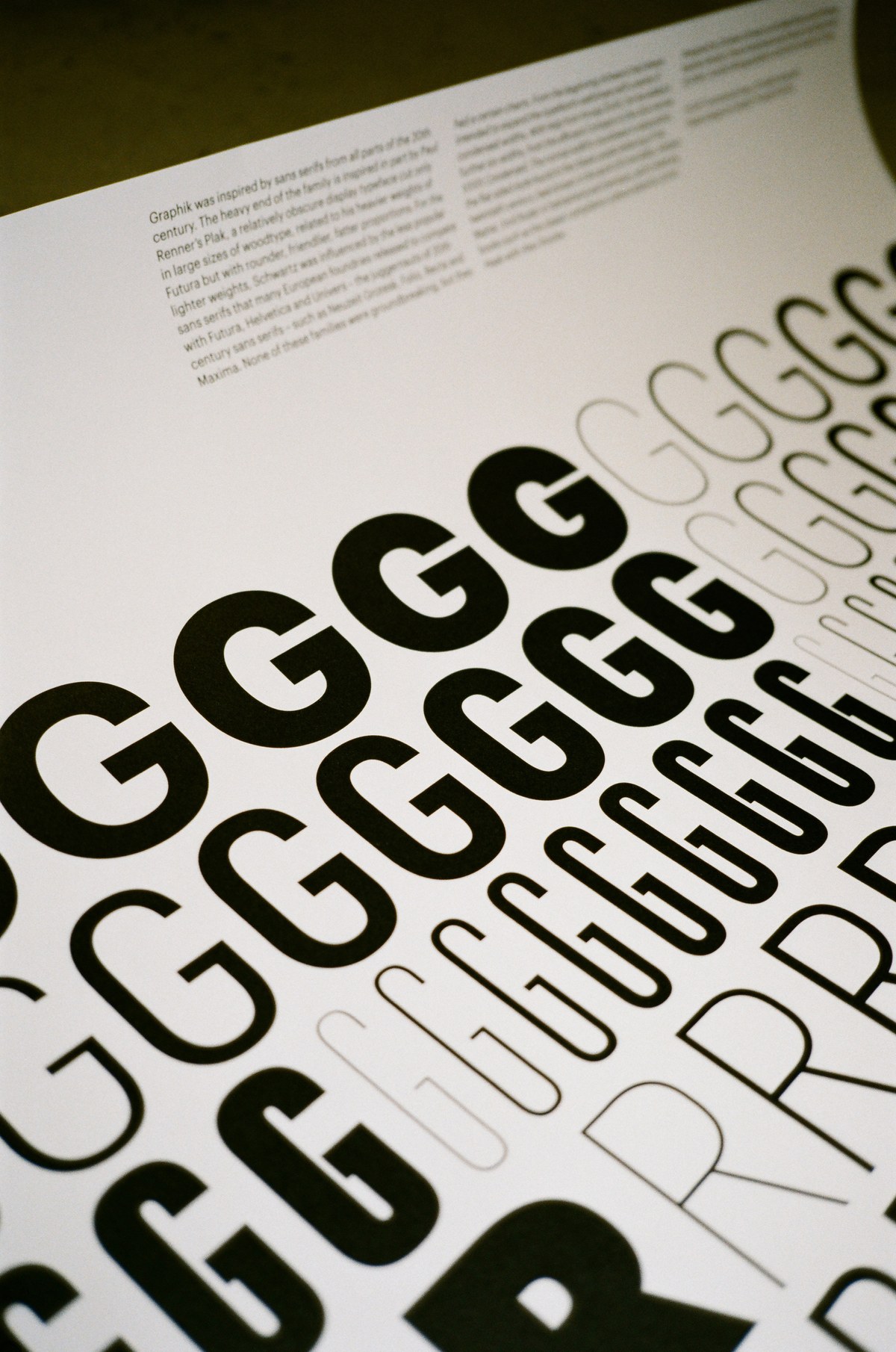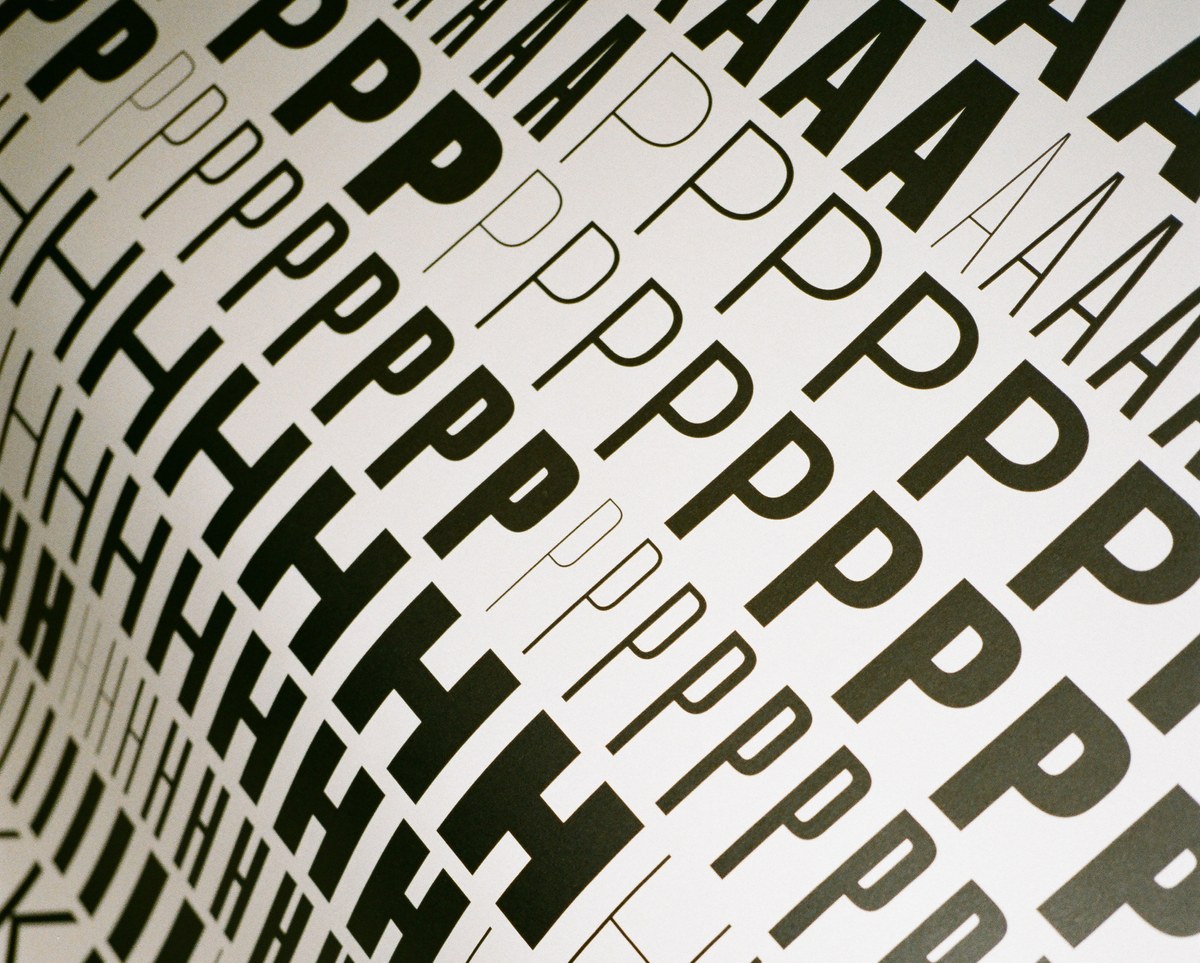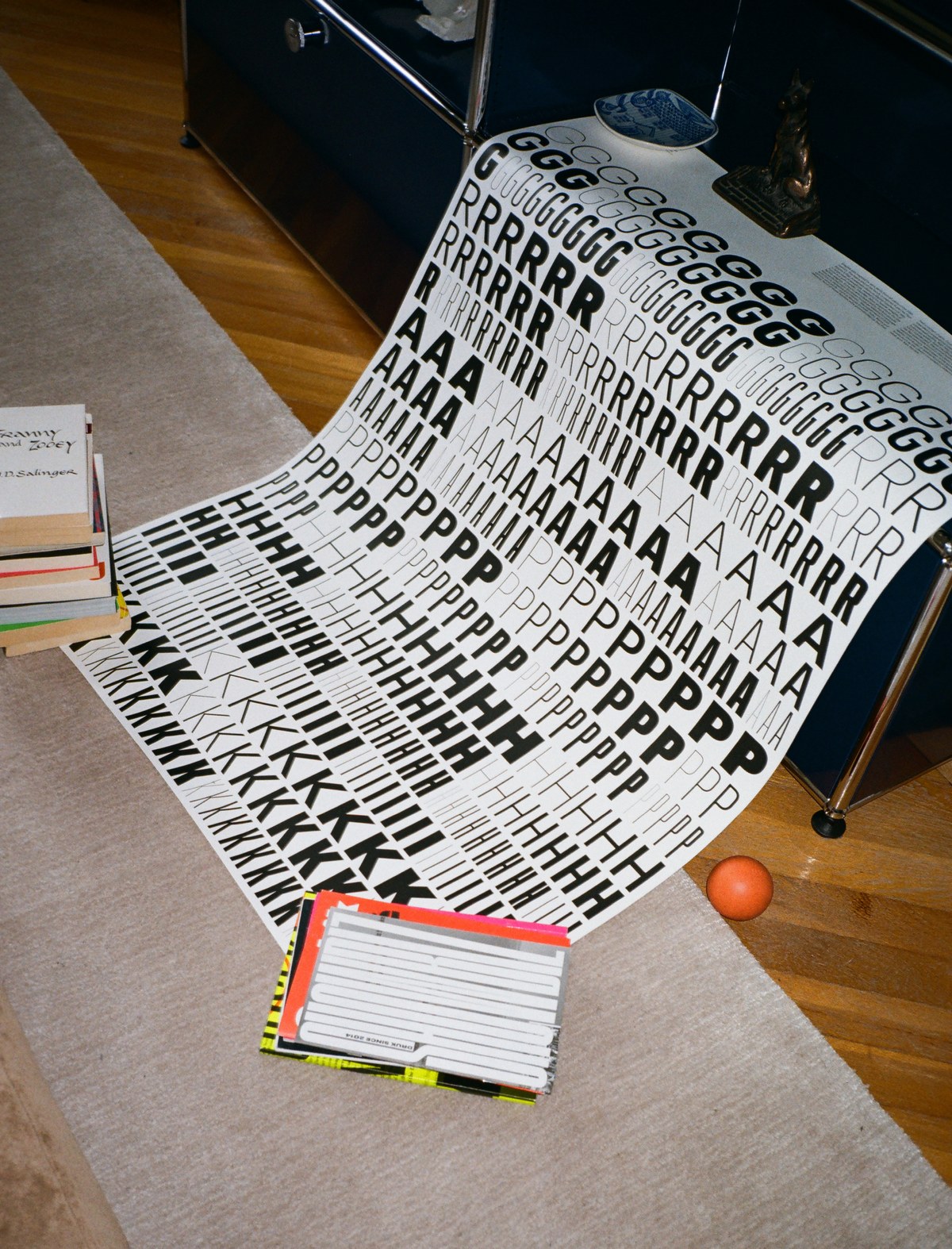
Graphik poster
Designed by Graphic Thought Facility
This limited edition large format poster (slightly bigger than A1) was designed by Graphic Thought Facility to introduce the new widths of Graphik released in 2017. The poster shows Graphik's entire range of 7 weights and 9 widths. This poster is larger than the folded version included with the Graphik specimen folder and ships in a tube.